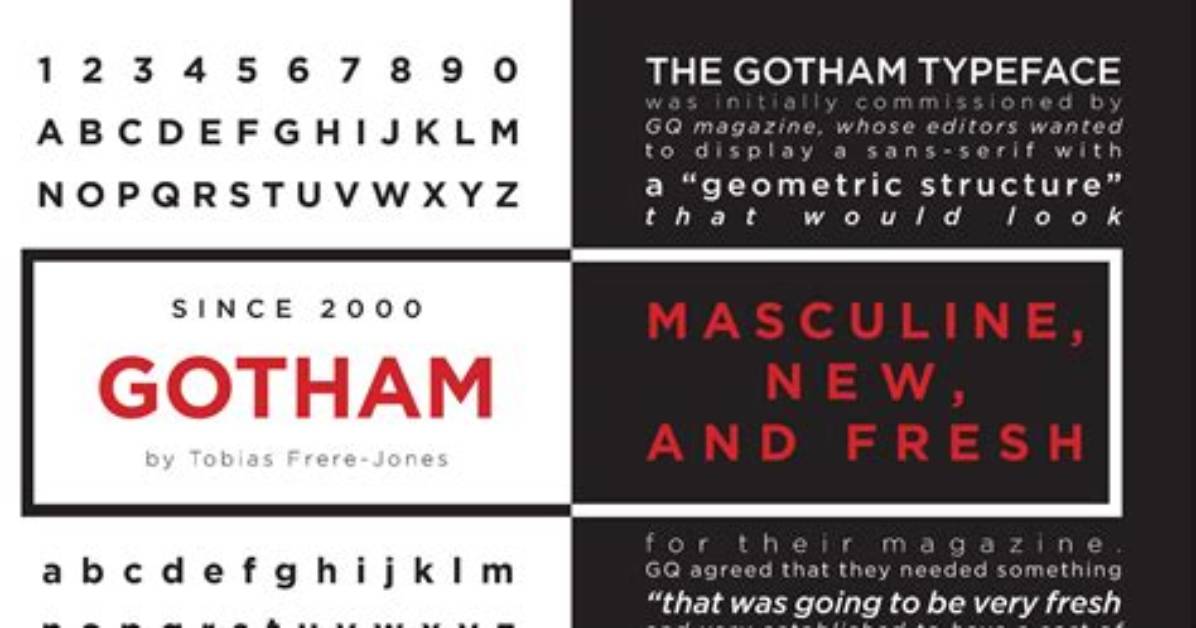
Is Gotham a Google Font?
Montserrat Is the Closest Google Font. Gotham Through the Typography Service Is Optimized for Web and Produces a Solid Rendered Output. While Not Free, Aaux...
Subsequently, question is, is Gotham a good font? Gotham. Designed by Tobias Frere-Jones and released in 2000 through H&FJ (now known as Hoefler & Co.), Gotham is a geometric sans-serif typeface that is among the most widely used fonts of the last decade. From Obama's 2008 presidential campaign to countless corporate identities, Gotham is seemingly everywhere.
Also know, what font is Gotham similar to?
Montserrat